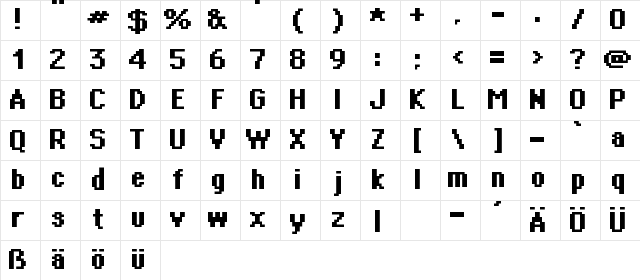
Supertext 02 is a composed and adaptable typeface that performs quietly and consistently across a wide range of design contexts. Its bold stroke weight gives it real presence on the page.